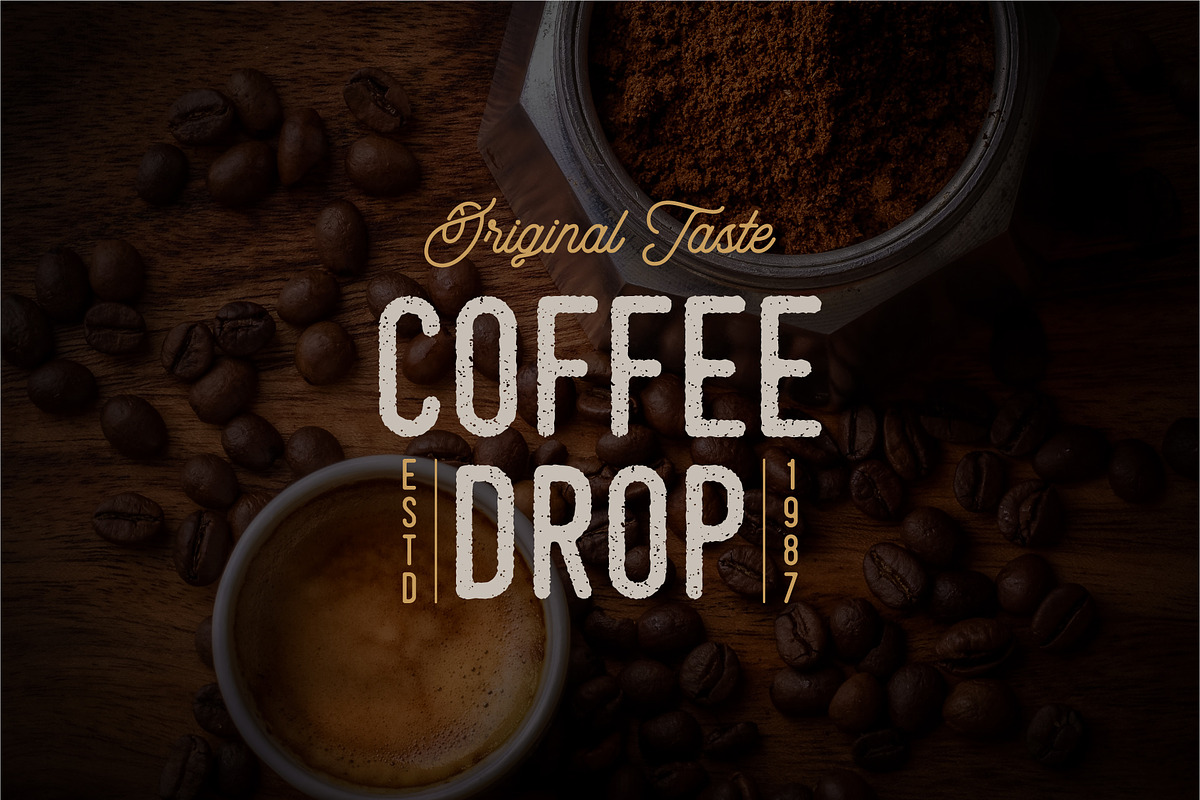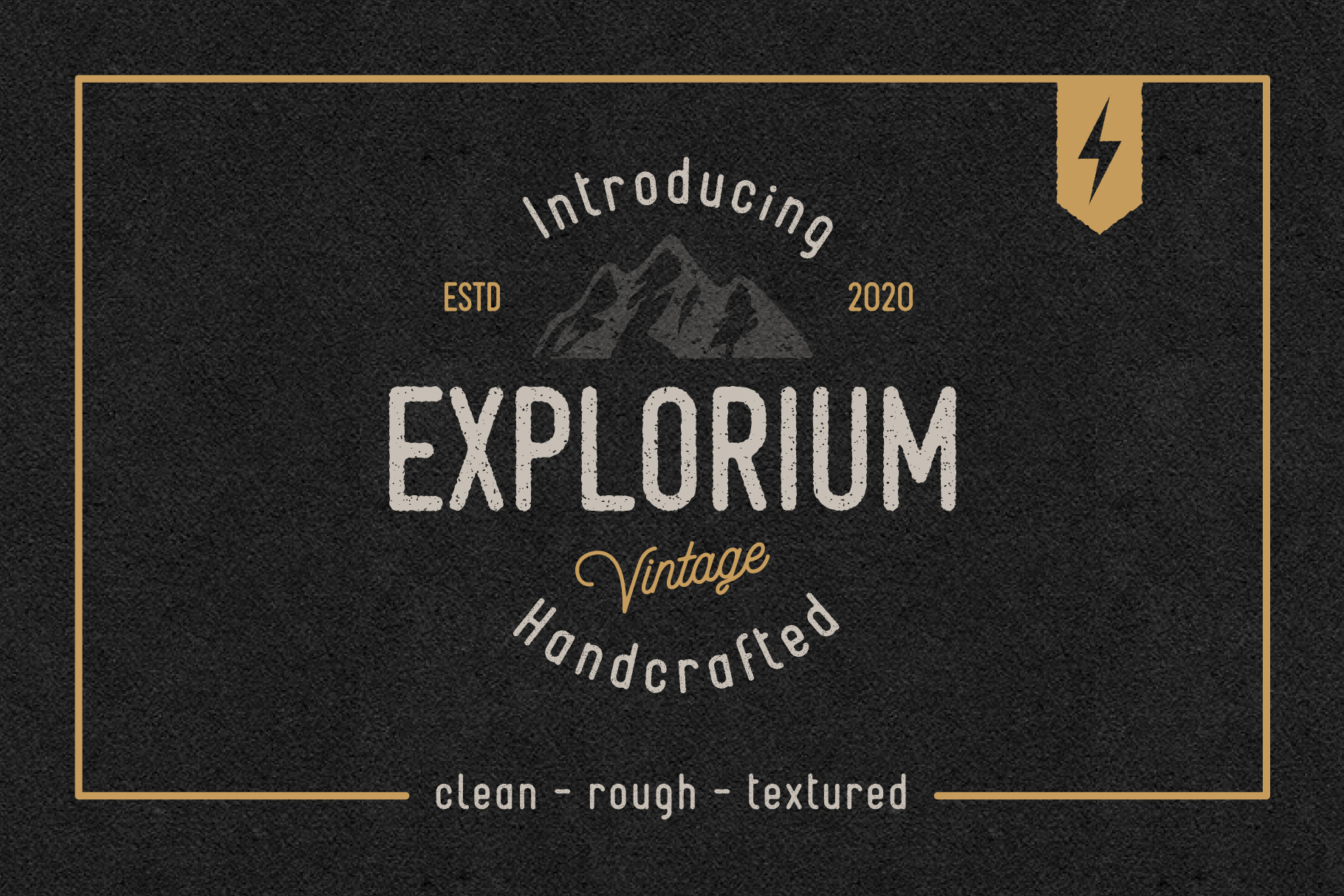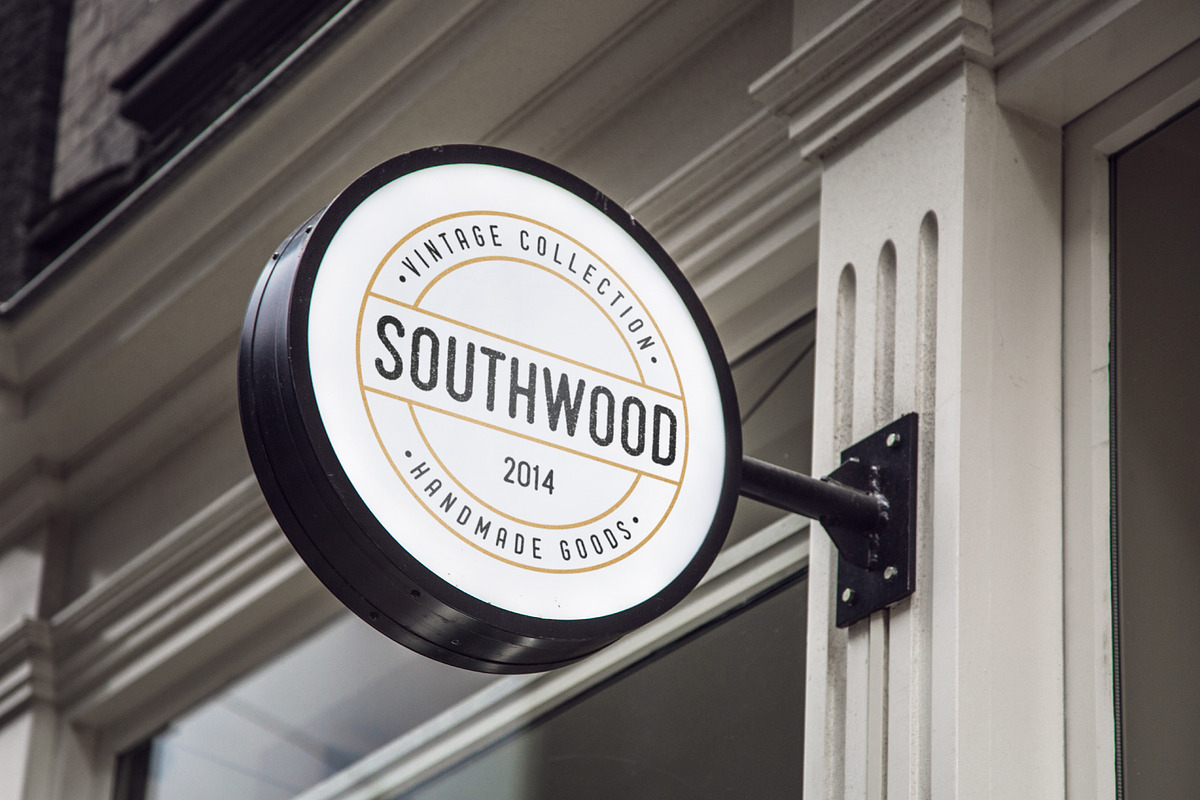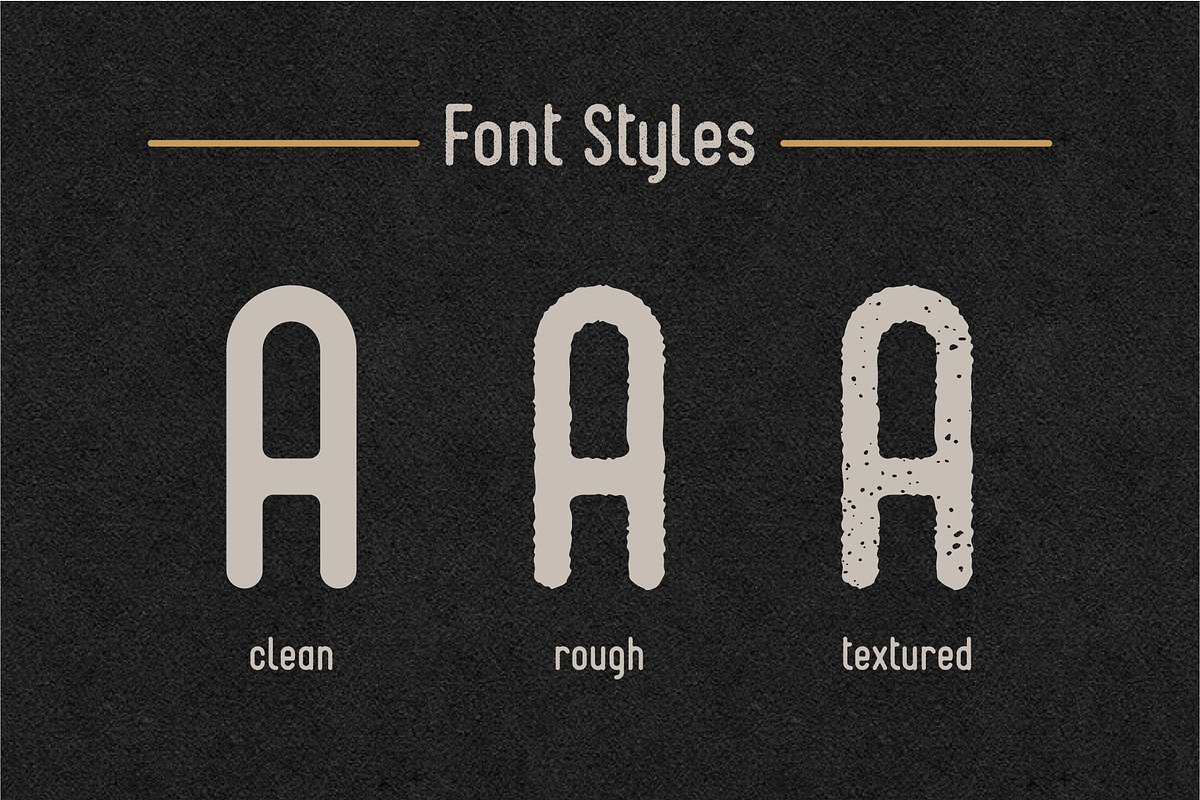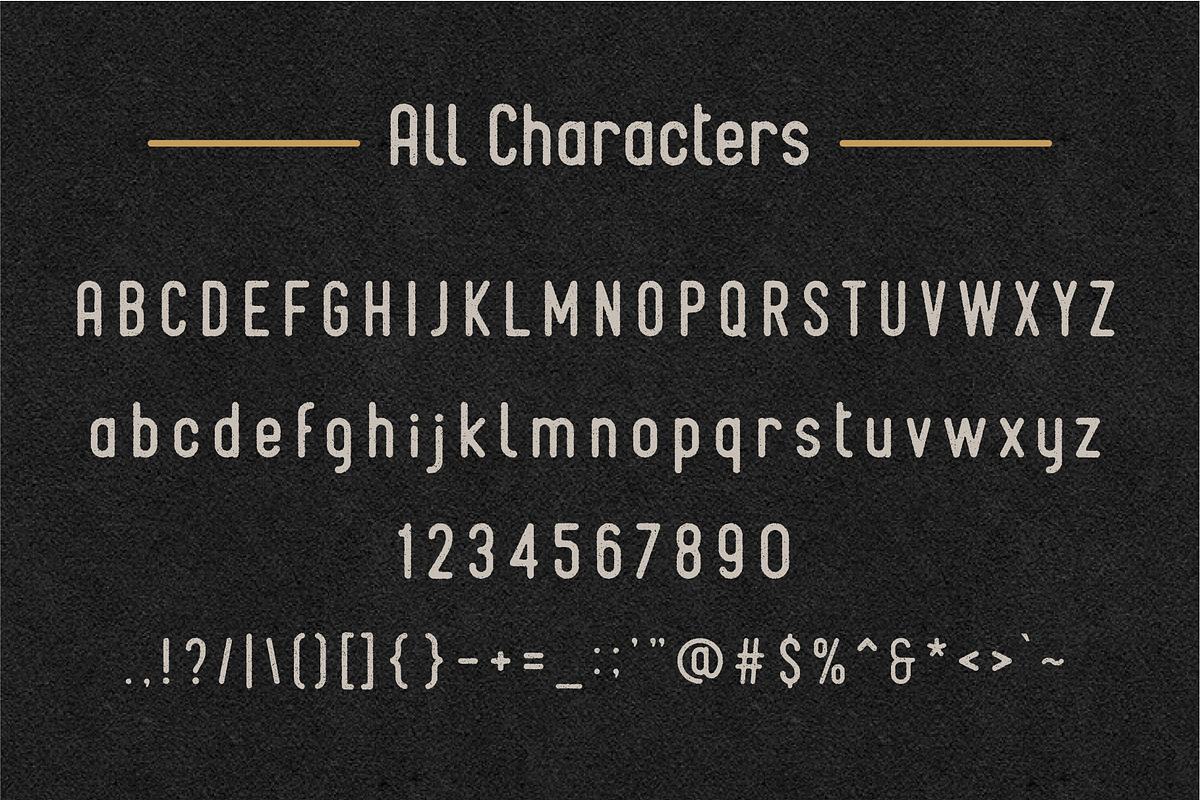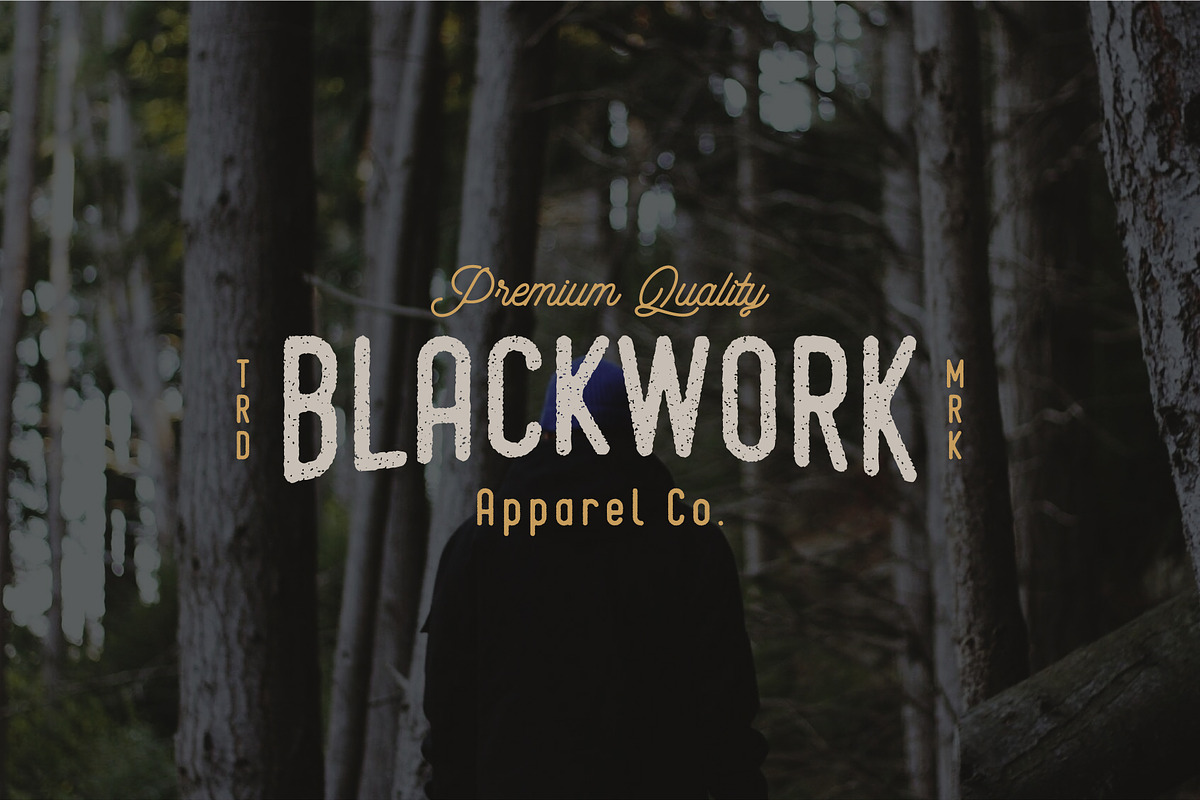
Introducing Explorium Retro Display Font!
Explorium is a monoline retro display font inspired from hand-drawn lettering and comes in three different styles – clean, rough and textured. Suitable for logo design, posters, banners, t-shirt design and many more, this font can help you achieve a retro, organic feel in your projects with ease!
- Clean, Rough and Textured Styles